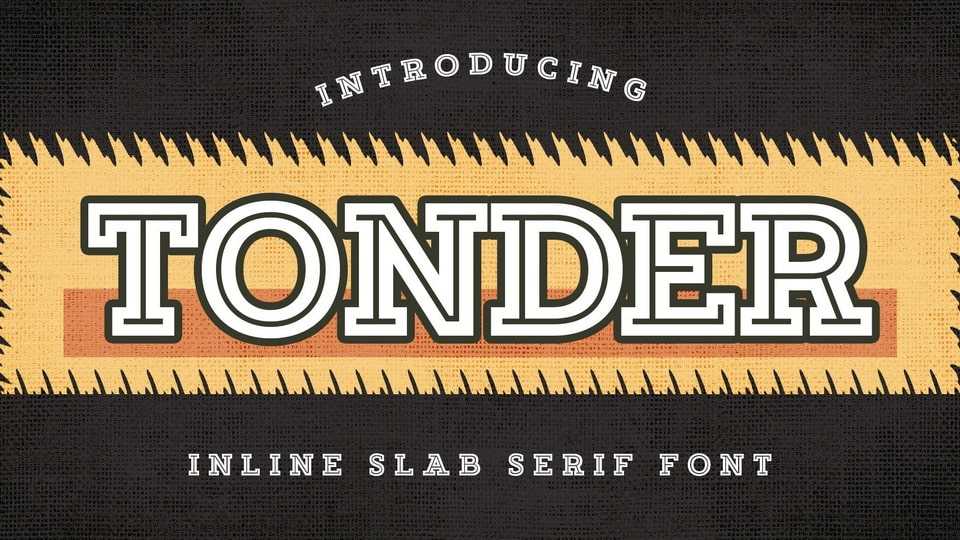
Download Tonder font, a slab serif typeface offering all the basic styles you will need especially retro theme project. Tonder has a modern yet whimsical style to immerse your designs into a magical world.
Designer: Drizy Studio